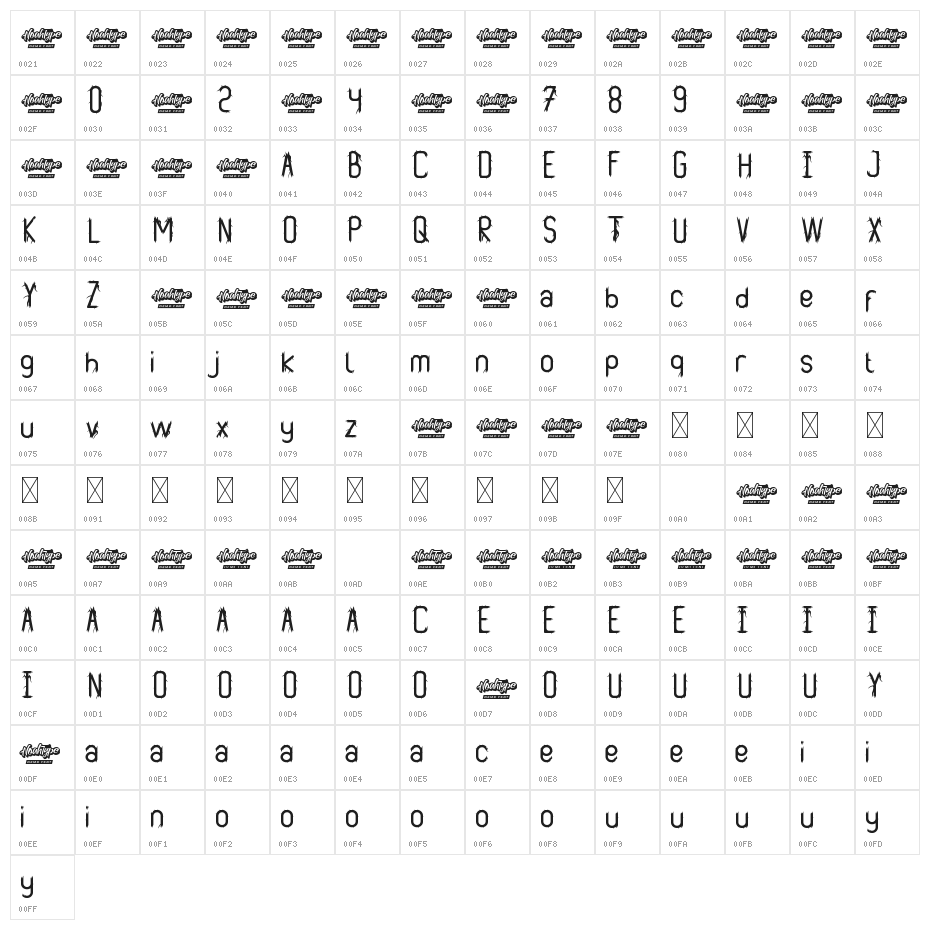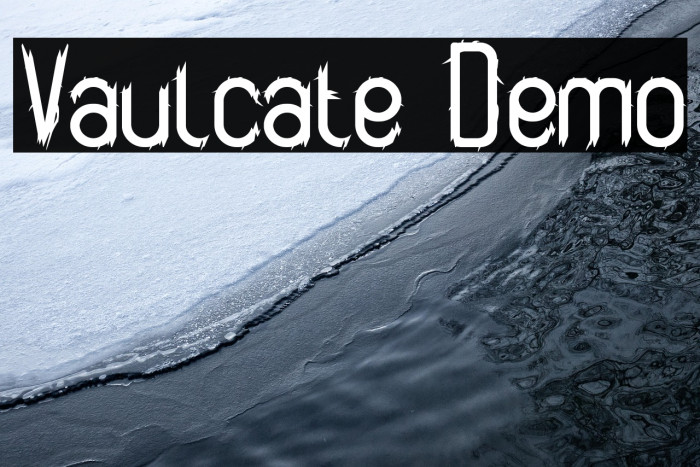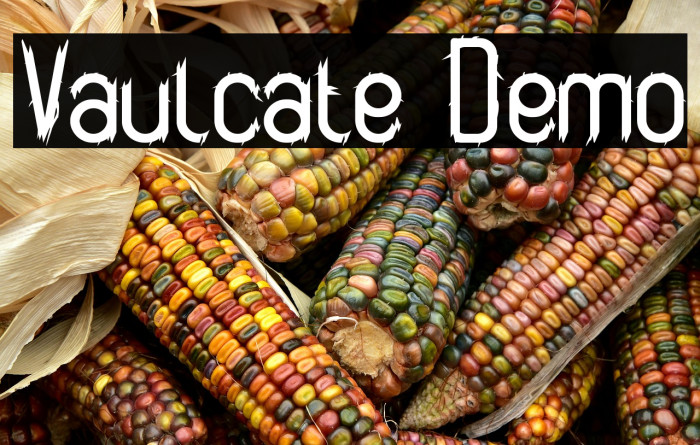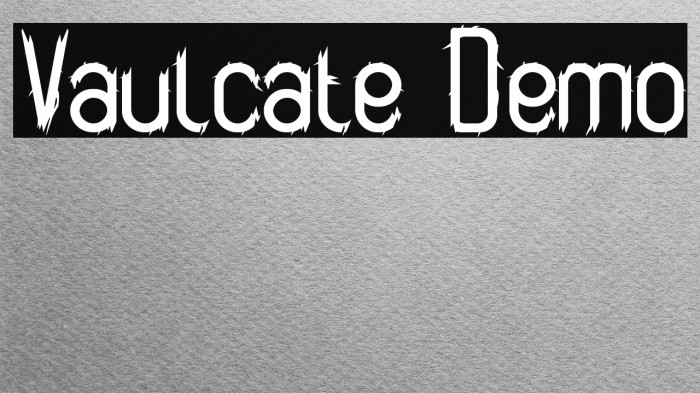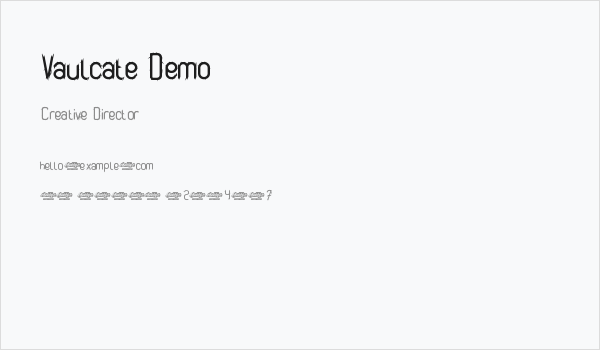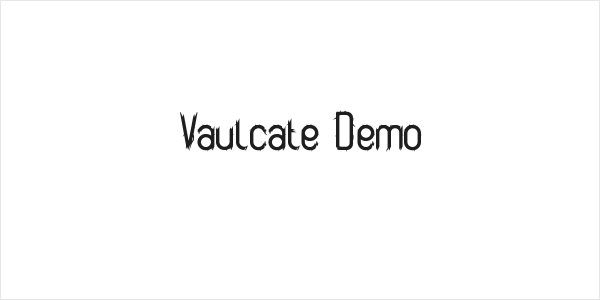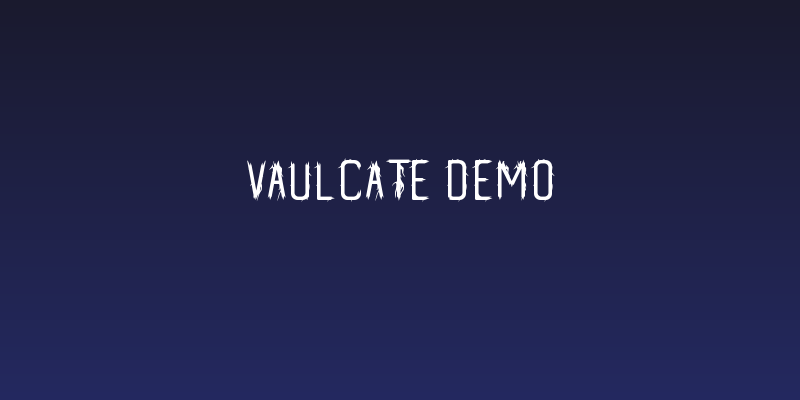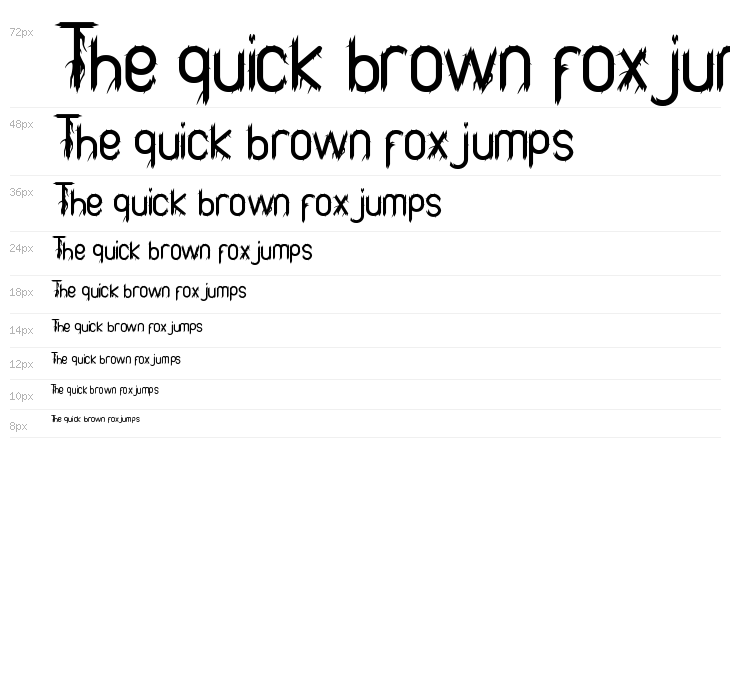
Vaulcate Demo Font
Vaulcate Demo Description
This font features a striking and edgy design, characterized by sharp, jagged edges that give it a thorny appearance. The uppercase and lowercase letters maintain a consistent style, with each character exhibiting a unique, spiky texture that adds a sense of movement and energy. The numbers follow the same aesthetic, ensuring a cohesive look across all characters. This font's distinct appearance makes it ideal for projects that require a bold and unconventional style.
| Proposed Projects | Ideal for horror-themed designs, edgy posters, album covers, and branding that requires a bold statement. |